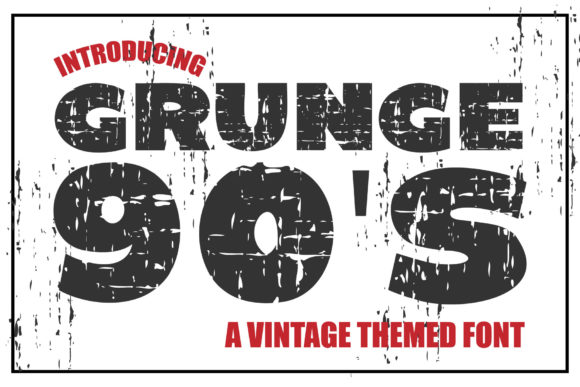
Looking for a unique and eye-catching font that will make your content stand out from the crowd? Look no further than Grunge 90'S Font! Created by KtwoP, this fantastic display font is perfect for headlines of all sizes, as well as blocks of text that need a little extra flair.
But Grunge 90'S Font isn't just a pretty face. It's also incredibly versatile, with maximum and minimum variations that make it perfect for any project, whether it's for the web, print, or moving images. With its edgy, grungy style, Grunge 90'S Font is sure to make a bold statement no matter where you use it.
So why should you choose Grunge 90'S Font over other display fonts? For starters, its unique style is sure to capture the attention of anyone who sees it, making it perfect for grabbing your audience's attention and keeping them engaged. And with its wide range of variations, Grunge 90'S Font is perfect for any project, whether you're designing a website, creating a poster, or putting together a video project.
So if you're looking for a font that will help take your content to the next level, look no further than Grunge 90'S Font. With its unique style, versatility, and ease of use, it's the perfect choice for anyone looking to make a bold statement with their design.